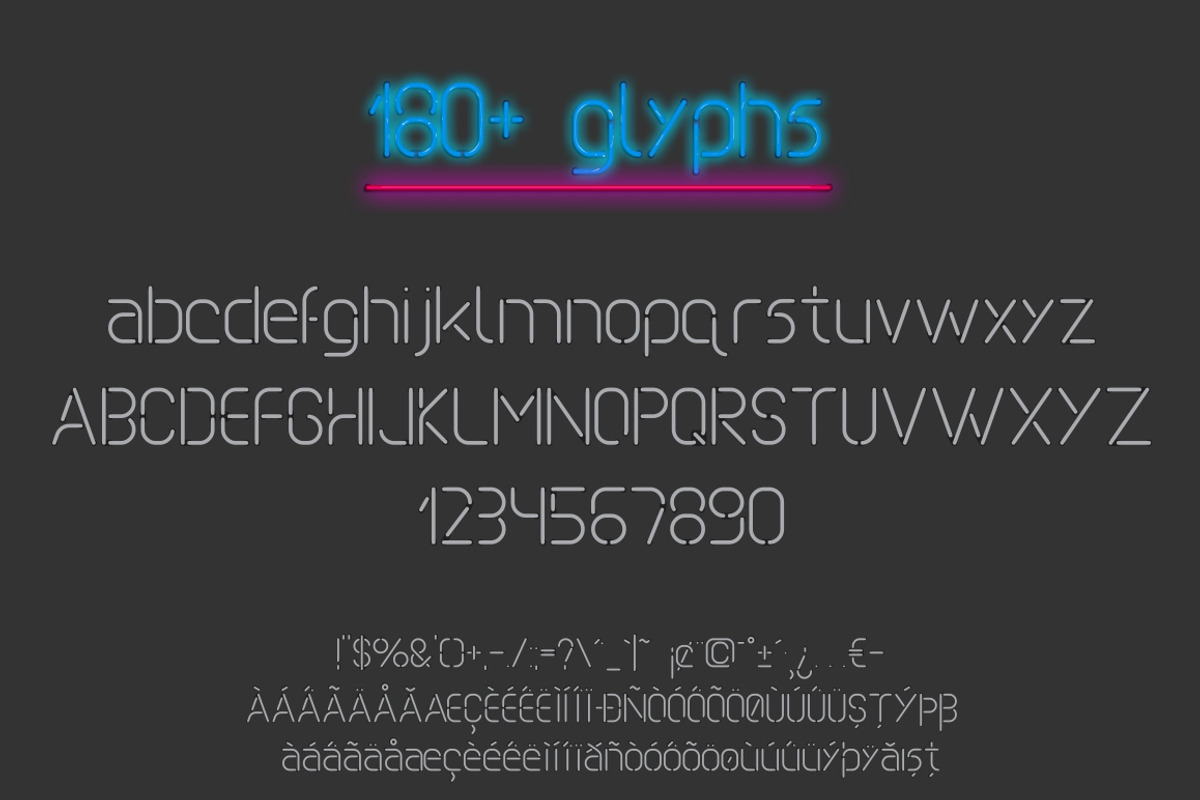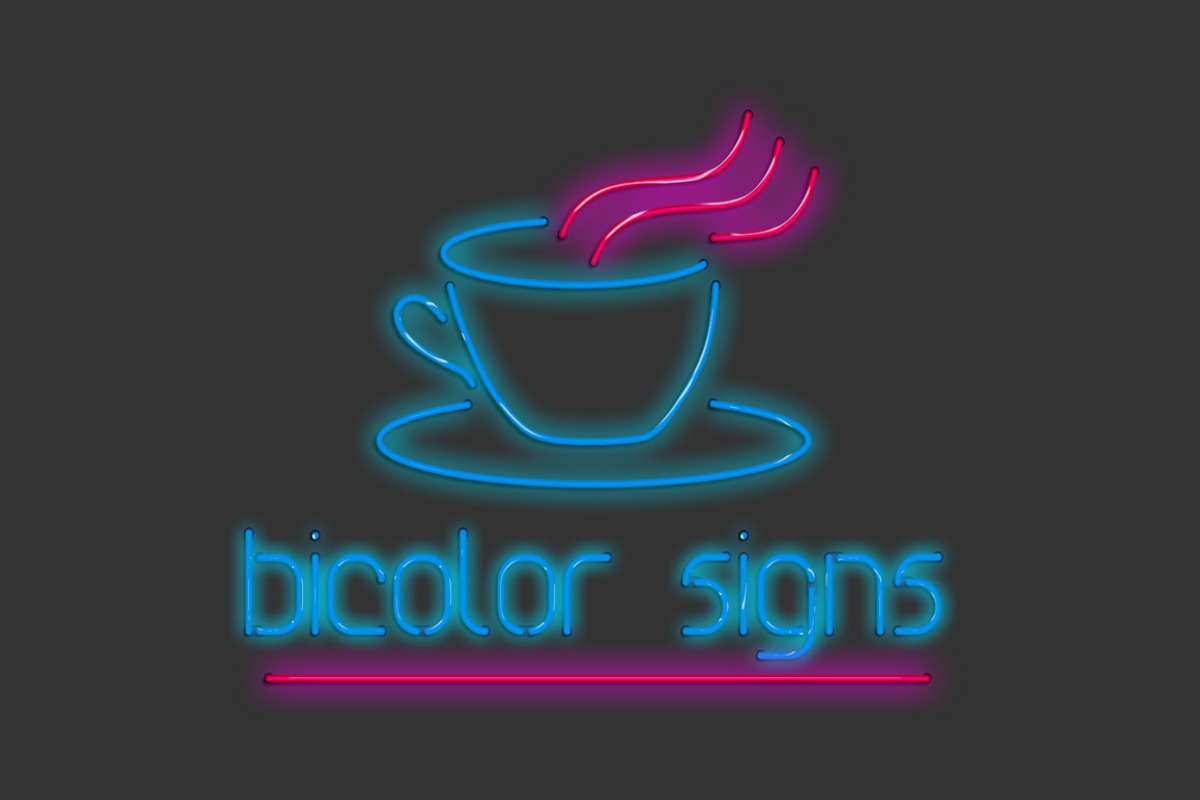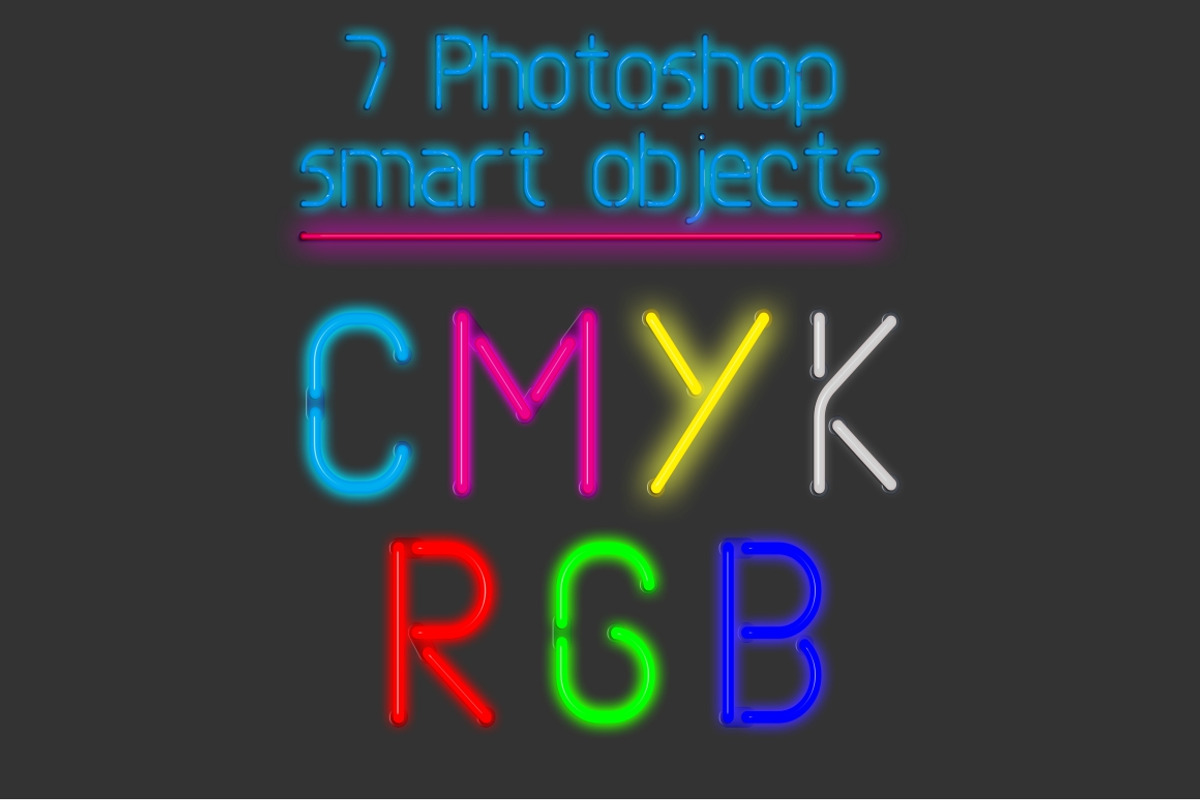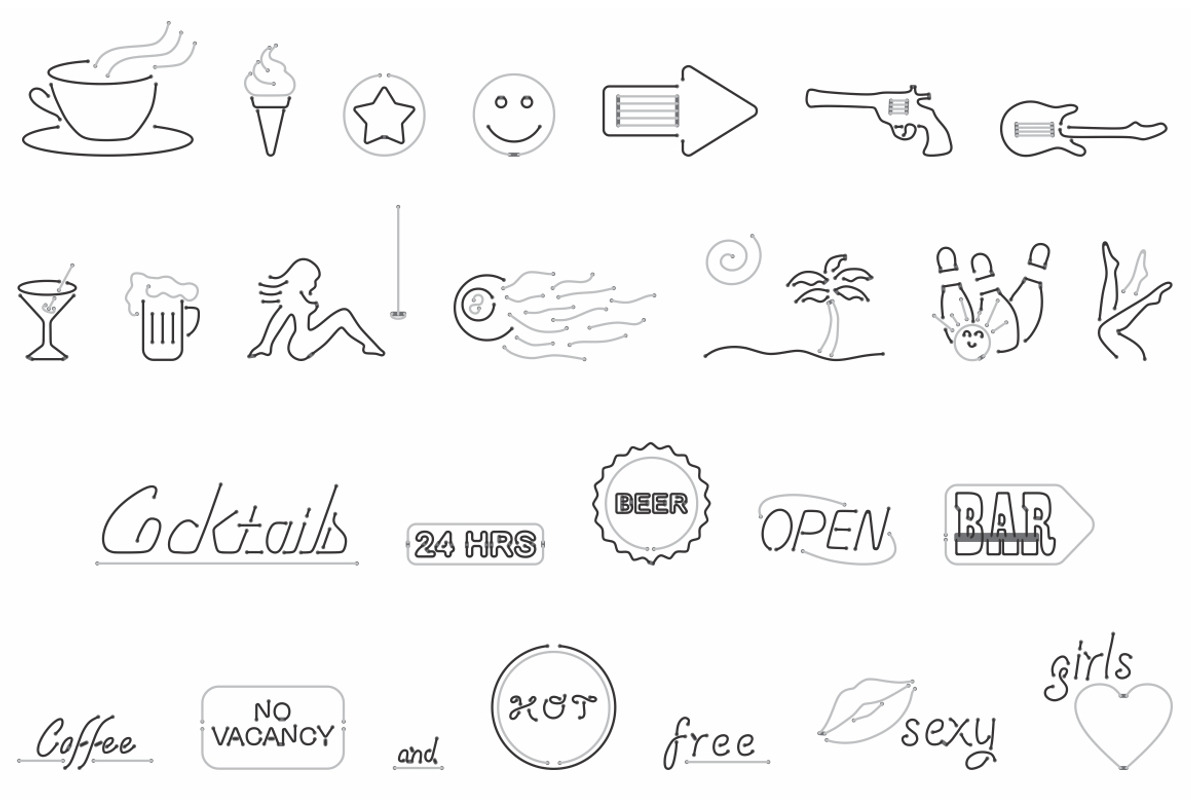
Neon Typeface
Neon Typeface by Monogram is a font selected for branding, posters, packaging, typography.
Why Neon Typeface is worth a look
Neon Typeface by Monogram fits naturally into Branding, posters, packaging, typography.